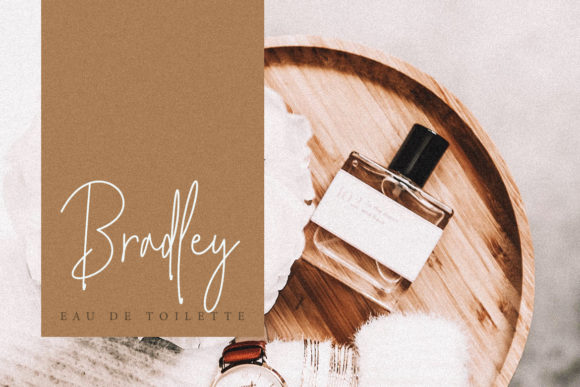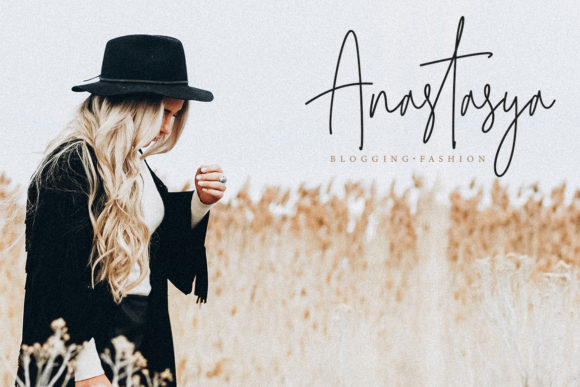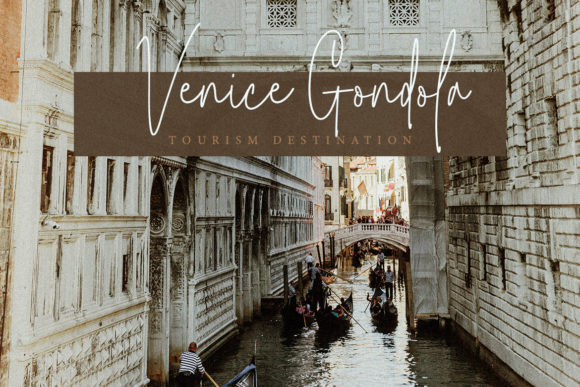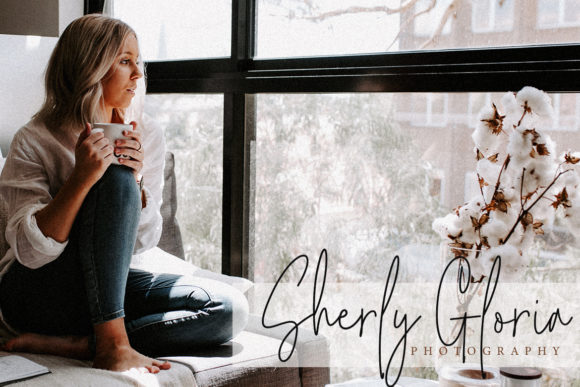
Introduction to Monttrela Font
Remember the moment when you’re working on a creative project and you just can’t find the right font to bring it to life? The one that perfectly captures the essence of your design and makes it truly stand out from the crowd? That’s exactly what happens when you discover the Monttrela Font.
With its beautiful, handwritten style, Monttrela Font is a design resource that adds a touch of elegance and sophistication to any project. Whether you’re working on a free download, a logo, or a marketing campaign, this high-quality font is sure to elevate your design to the next level.
As a designer, you know how valuable it is to have access to a wide range of design elements, including fonts with transparent backgrounds that can be easily customized to fit your needs. Monttrela Font is one such resource that can be a game-changer for your creative projects, making it an essential addition to your design toolkit.
Key Features of Monttrela Font
- High-quality font with a unique, elegant design suitable for creative projects.
- Features a transparent background, making it easy to use in design resources with complex backgrounds.
- Includes a range of glyphs and characters to support various languages and design needs.
- Designed with a high resolution (up to 300 DPI), ensuring crisp and clear text in print and digital designs.
- Perfect for use in logo design, typography, and other creative projects where a sophisticated font is required.
Honest Review: Monttrela Font
As a designer, I’m always on the lookout for high-quality design resources that can elevate my creative projects. Recently, I came across the Monttrela Font, and I’m excited to share my honest review with you.
- ✨ Clean and modern aesthetic: The Monttrela Font has a sleek and sophisticated design that’s perfect for a variety of creative projects, from digital marketing materials to print publications.
- ✨ High-quality typography: The font is well-crafted and offers a range of weights and styles, making it easy to customize to suit your design needs.
- ⚠️ Limited customization options: While the Monttrela Font offers a range of weights and styles, it’s not as customizable as some other fonts on the market.
- ⚠️ Not suitable for all design projects: The font’s modern aesthetic may not be the best fit for more traditional or conservative design projects.
Overall, I’m impressed with the Monttrela Font’s high-quality typography and modern aesthetic. While it may have some limitations, it’s an excellent resource for designers working on creative projects that require a clean and sophisticated look. Plus, the free download makes it an attractive option for designers on a budget.
Tips for Getting the Most Out of Monttrela Font
Use the Monttrela Font in conjunction with a high-quality image to create a stunning design. Experiment with different font sizes and colors to add visual interest to your design.
The Monttrela Font is commonly used in creative projects such as social media graphics, web design, and print materials. It is also used in presentations and documents to add a touch of elegance and sophistication.
Is the Monttrela Font suitable for high-quality design projects?
Yes, the Monttrela Font is designed to be a high-quality design resource. Its crisp, clean lines and transparent background make it perfect for use in a wide range of creative projects, from print design to digital graphics. With its high level of detail and precision, you can trust that your designs will look professional and polished.